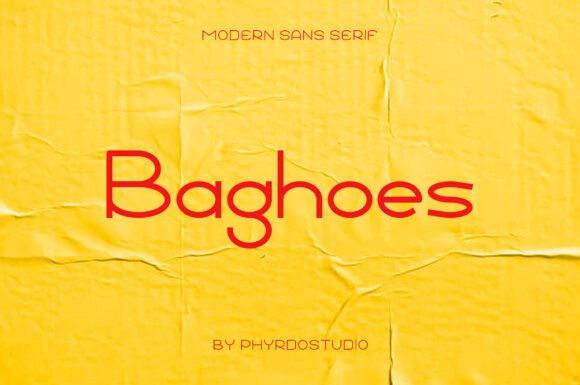
Baghoes Font: Elevate Your Design with Elegance and Sophistication
The world of typography is vast and diverse, with numerous font styles to choose from, each with its unique characteristics and design implications. Among these, the Baghoes font stands out for its tall, slim letter design that exudes an air of elegance and modernity. This font is not just a choice; it’s a statement that can elevate your brand’s visual identity to new heights of sophistication and luxury. In this article, we’ll delve into the intricacies of the Baghoes font, exploring its design features, and the myriad of ways it can be utilized to enhance your design projects, from logos and branding to a wide array of design products.
The Design Essence of Baghoes Font
Tall and Slim: A Signature Elegance
The Baghoes font is characterized by its tall and slim letter design. This distinctive feature gives it a unique presence on any medium, whether it’s a logo, a website header, or a print material. The vertical elongation of its letters not only makes it stand out but also imparts a sense of elegance and refinement. This is particularly beneficial for brands aiming to project a sophisticated image.
Bold yet Elegant Typography
Despite its slim appearance, the Baghoes font does not compromise on boldness. It strikes a perfect balance between being delicate and assertive, making it an ideal choice for designers. This bold yet elegant typography style ensures that your design elements are not only noticed but also remembered. The font’s ability to command attention while maintaining an aura of luxury is a significant advantage in today’s competitive design landscape.
Conveying Prestige and Professionalism
The ascenders of the Baghoes font extend upwards with grace, contributing to its prestigious look. This typographic feature is more than just aesthetically pleasing; it serves as a visual cue that communicates professionalism and high stature. For brands that aim to be perceived as leaders in their industry, the Baghoes font offers a typographic solution that aligns with their aspirations.
Versatility in Design Applications
Logo Design and Branding
Creating a logo that is both memorable and reflective of your brand’s values can be a challenging task. The Baghoes font offers a versatile solution that can be adapted to various logo design concepts. Its elegant and modern appearance makes it suitable for luxury brands, tech startups, and any business looking to make a sophisticated statement. When used in branding, this font can help in establishing a consistent visual identity that resonates with the target audience.
Enhancing Design Products
Beyond logos and branding, the Baghoes font can be effectively used in a wide range of design products. Whether it’s business cards, brochures, posters, or digital platforms like websites and mobile apps, this font can add a touch of elegance and modernity. Its versatility allows designers to experiment with different design elements, ensuring that the final product is both visually appealing and aligned with the brand’s message.
Digital and Print Media
In today’s multi-channel world, brands communicate with their audience across various platforms. The Baghoes font, with its clear and readable design, is well-suited for both digital and print media. Its adaptability to different sizes and resolutions without losing its charm or legibility makes it a practical choice for designers working on multi-platform projects.
Why Choose Baghoes Font?
Unique Brand Differentiation
In a crowded marketplace, differentiation is key. The Baghoes font offers a unique typographic solution that can set your brand apart. Its distinctive appearance ensures that your brand’s visual identity is not only noticed but also remembered, helping you to carve out a niche in the minds of your target audience.
Timeless Appeal
Trends in design come and go, but the appeal of the Baghoes font is timeless. Its classic elegance, combined with a modern twist, ensures that it remains relevant across different design landscapes. Investing in a font like Baghoes is essentially investing in a design element that won’t require frequent changes to stay current.
Enhances Brand Perception
The font you choose for your brand is not just a design decision; it’s a strategic one. The Baghoes font, with its luxurious and contemporary impression, can significantly enhance how your brand is perceived. It’s a tool that can help in building a brand image that is associated with quality, sophistication, and professionalism.
The Baghoes font, with its tall and slim letter design, bold yet elegant typography, and the ability to convey a prestigious and professional impression, stands as a versatile and powerful tool in the world of design. Whether you’re crafting a logo, developing a brand’s visual identity, or working on various design products, this font offers a unique combination of elegance and modernity. Its suitability for both digital and print media, along with its timeless appeal and ability to enhance brand perception, makes it an excellent choice for designers and brands alike. By choosing the Baghoes font, you’re not just selecting a typography style; you’re embracing a design statement that can elevate your brand to new heights of sophistication and luxury.
As you explore the vast possibilities that the Baghoes font has to offer, remember that typography is a critical element in design that can make or break the visual appeal of your project. With its distinctive features and versatile applications, the Baghoes font is poised to become a staple in the toolkit of designers looking to make a lasting impression.